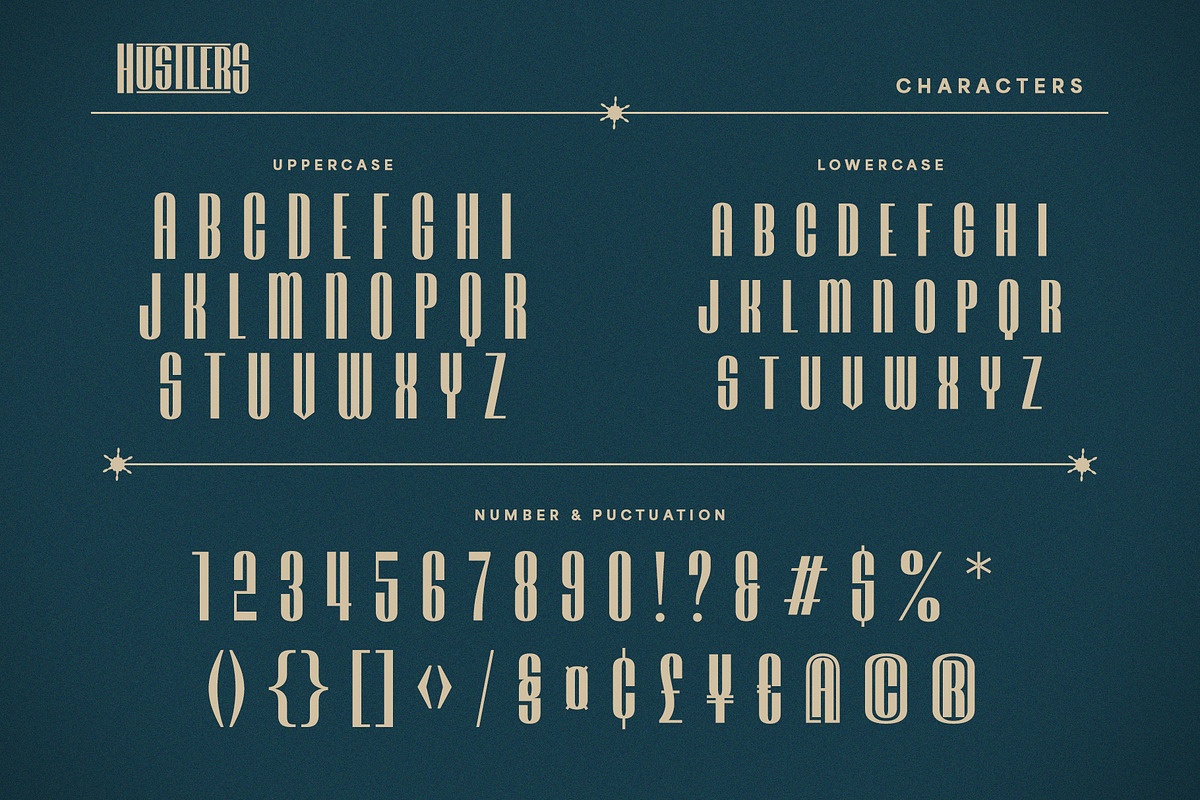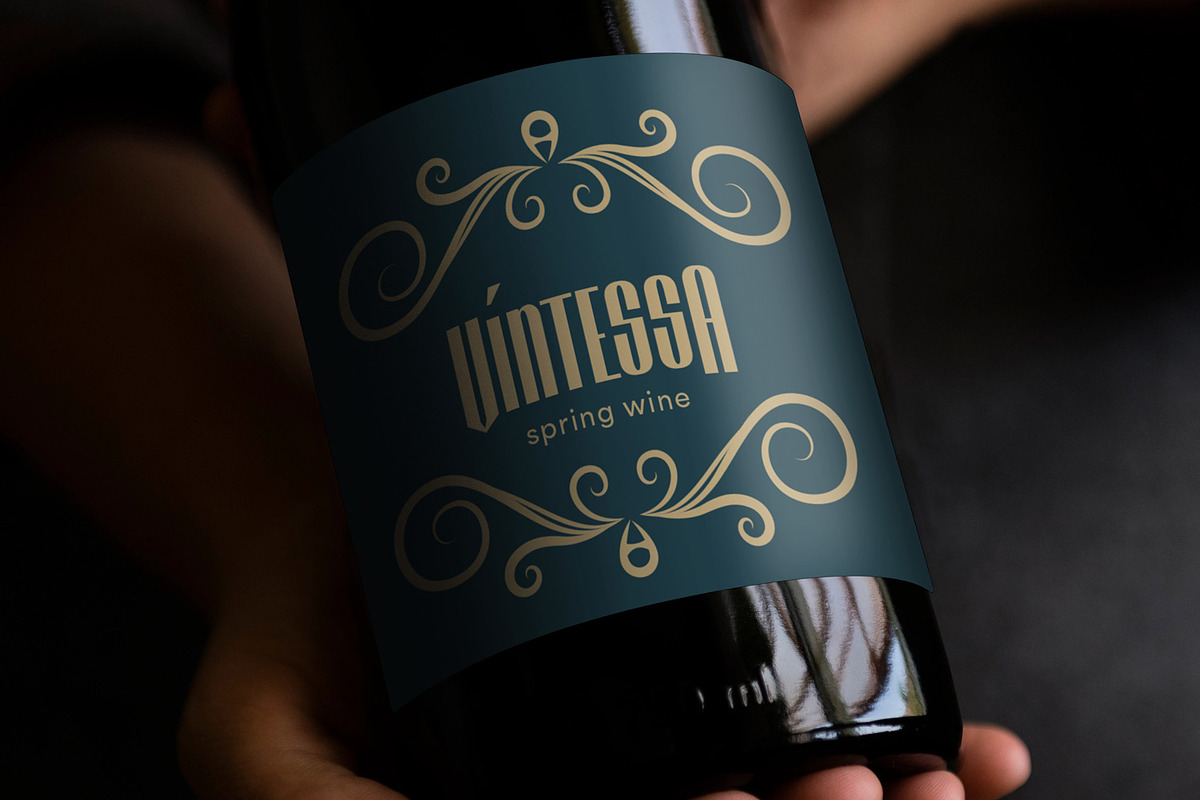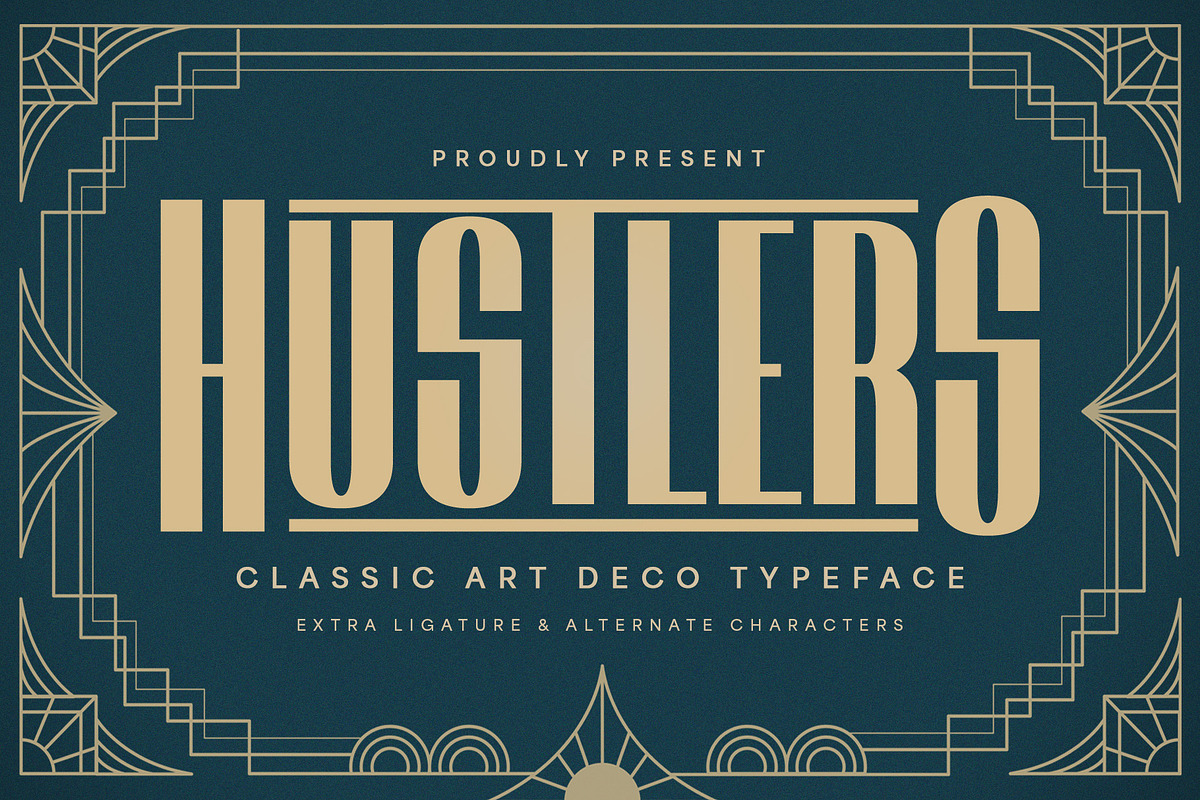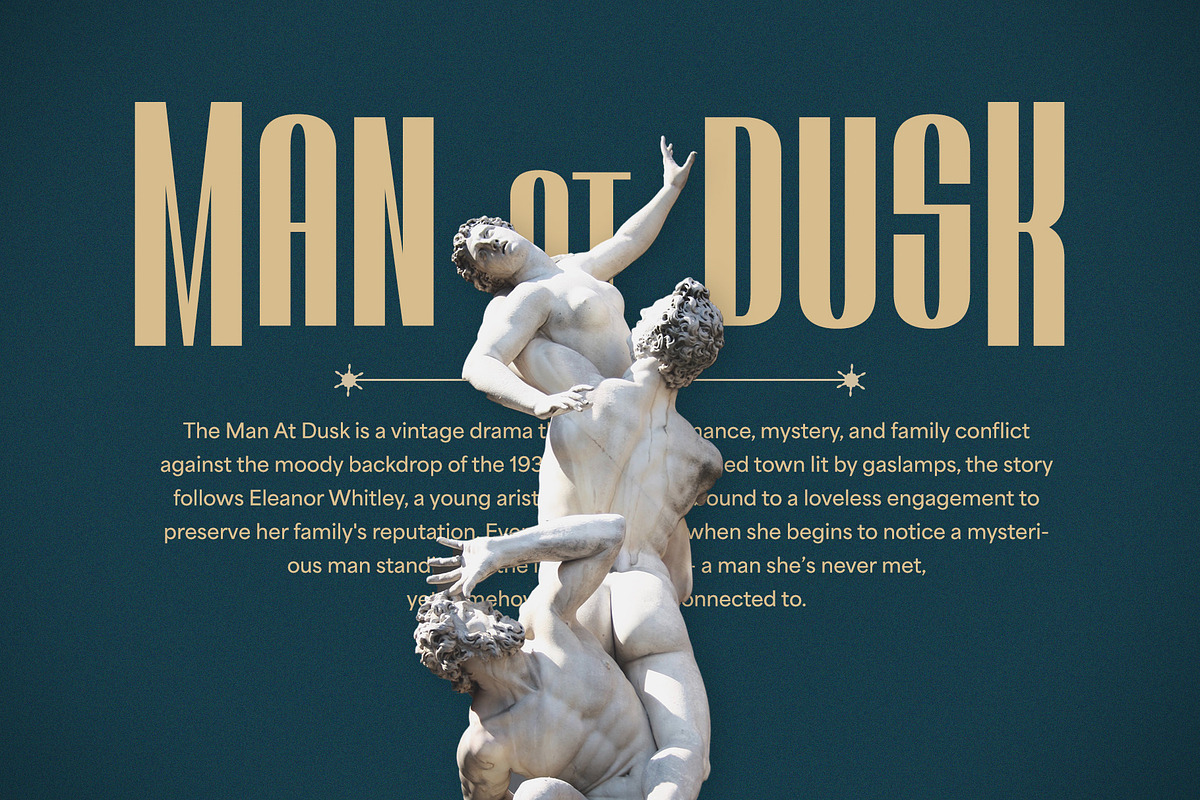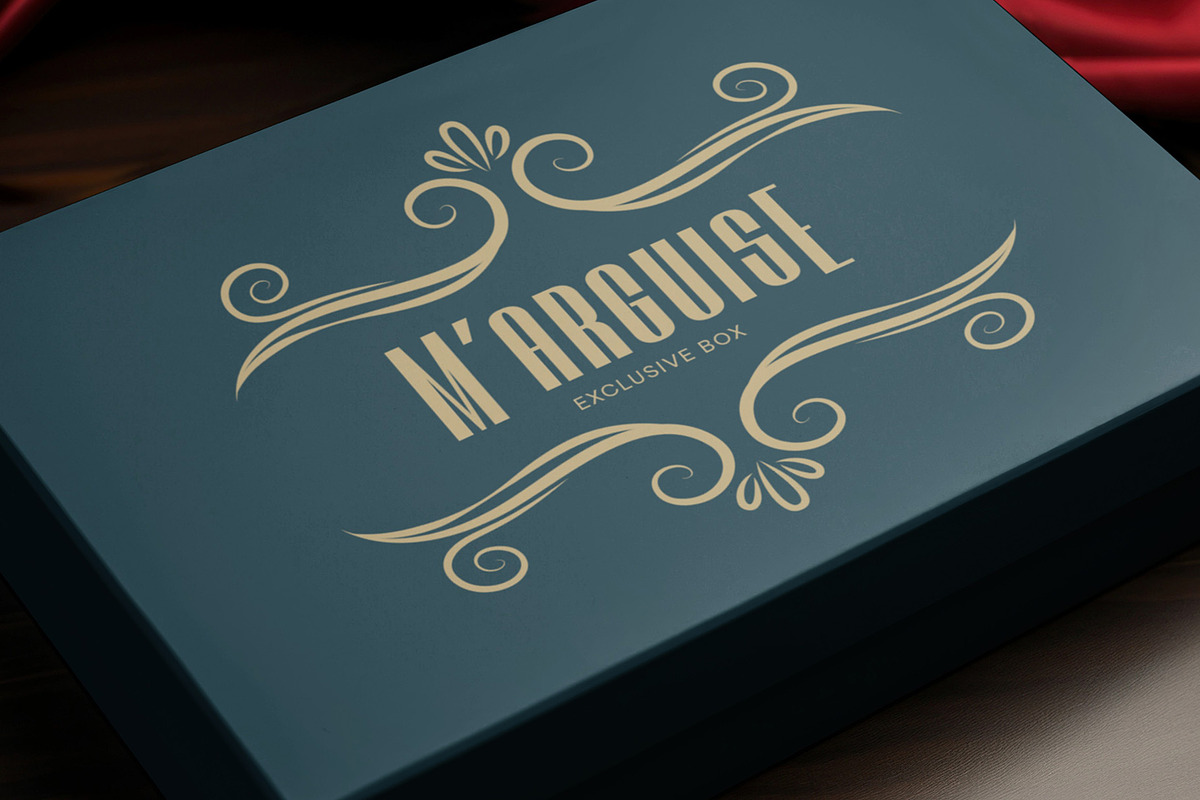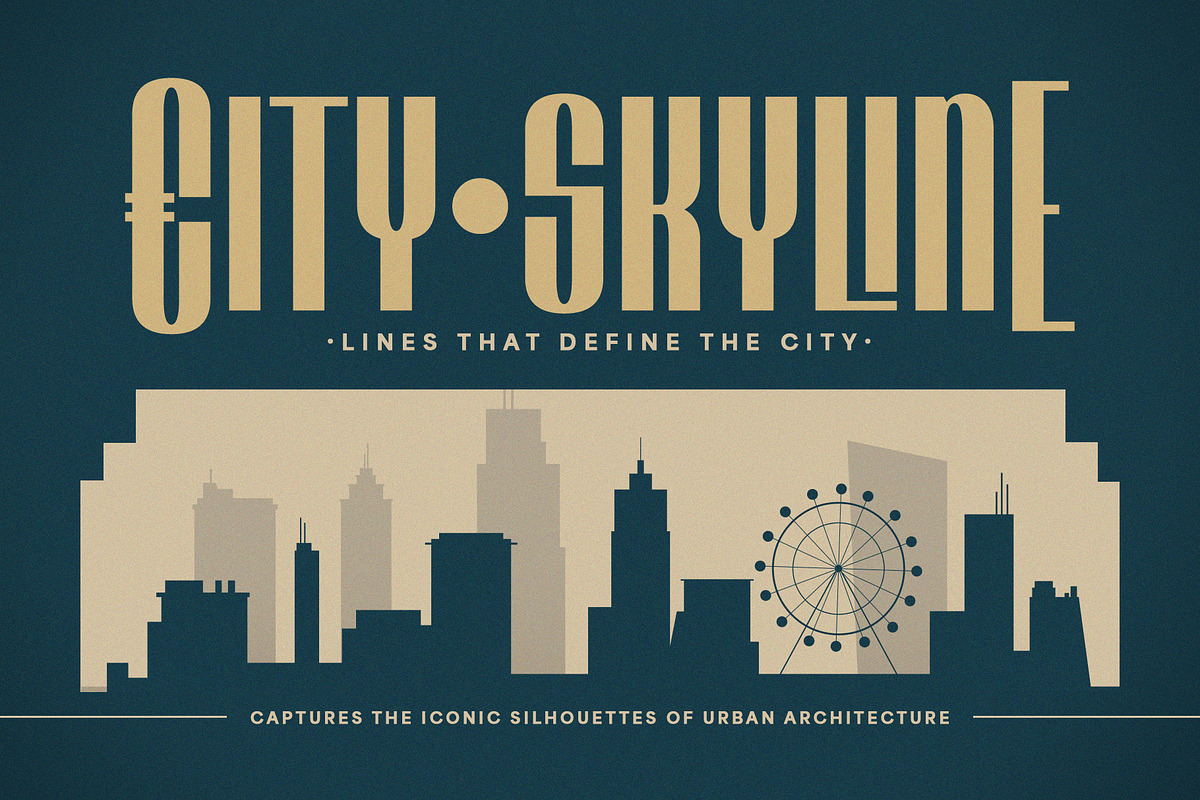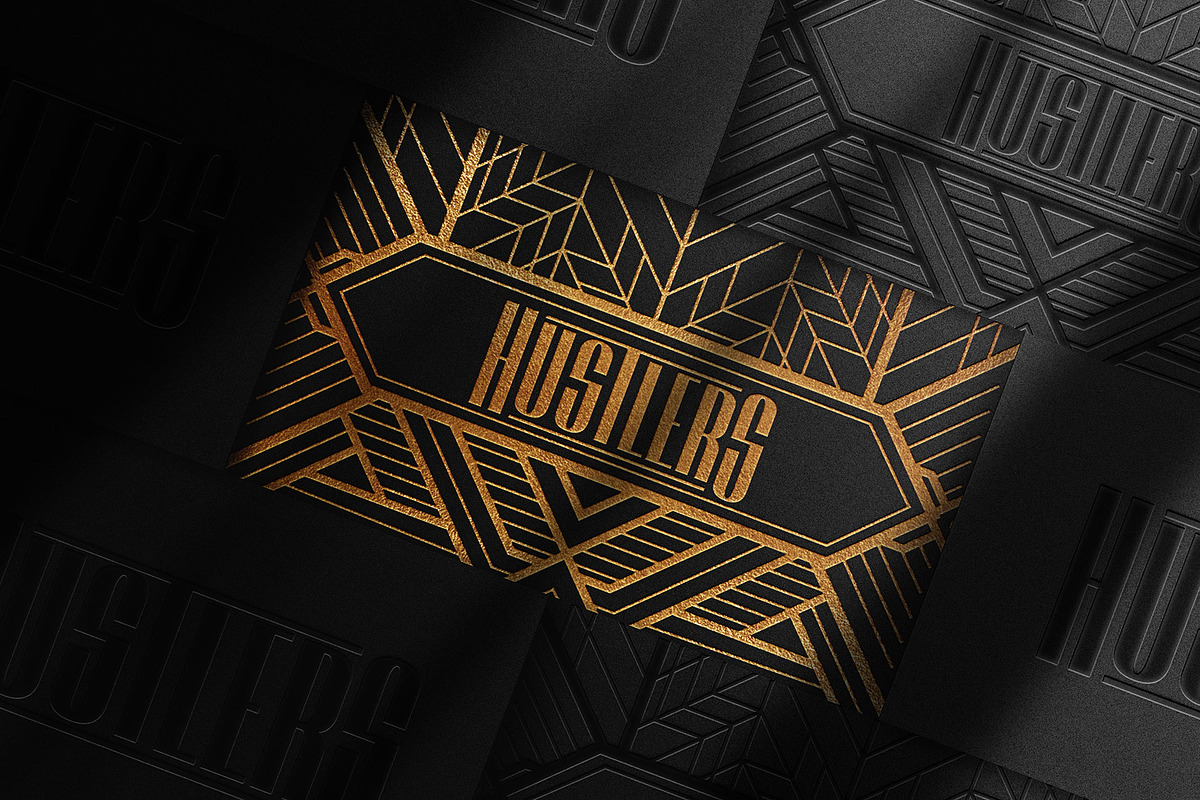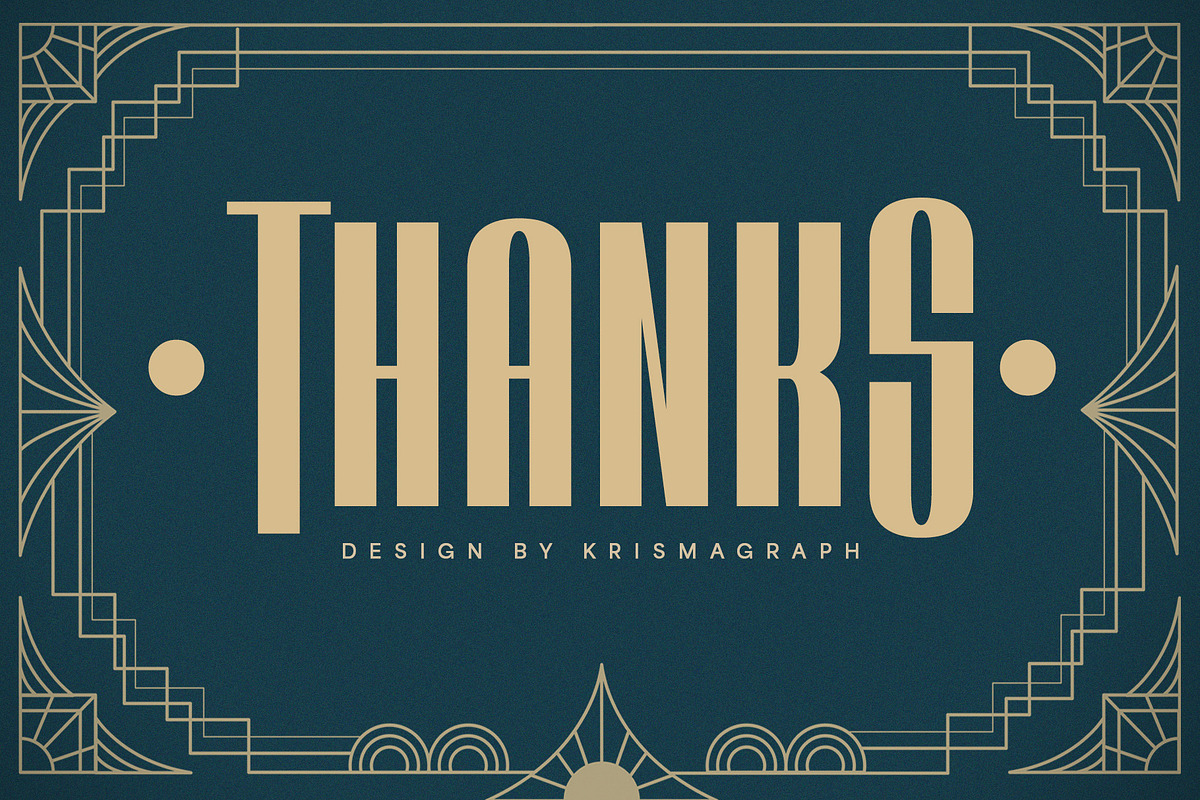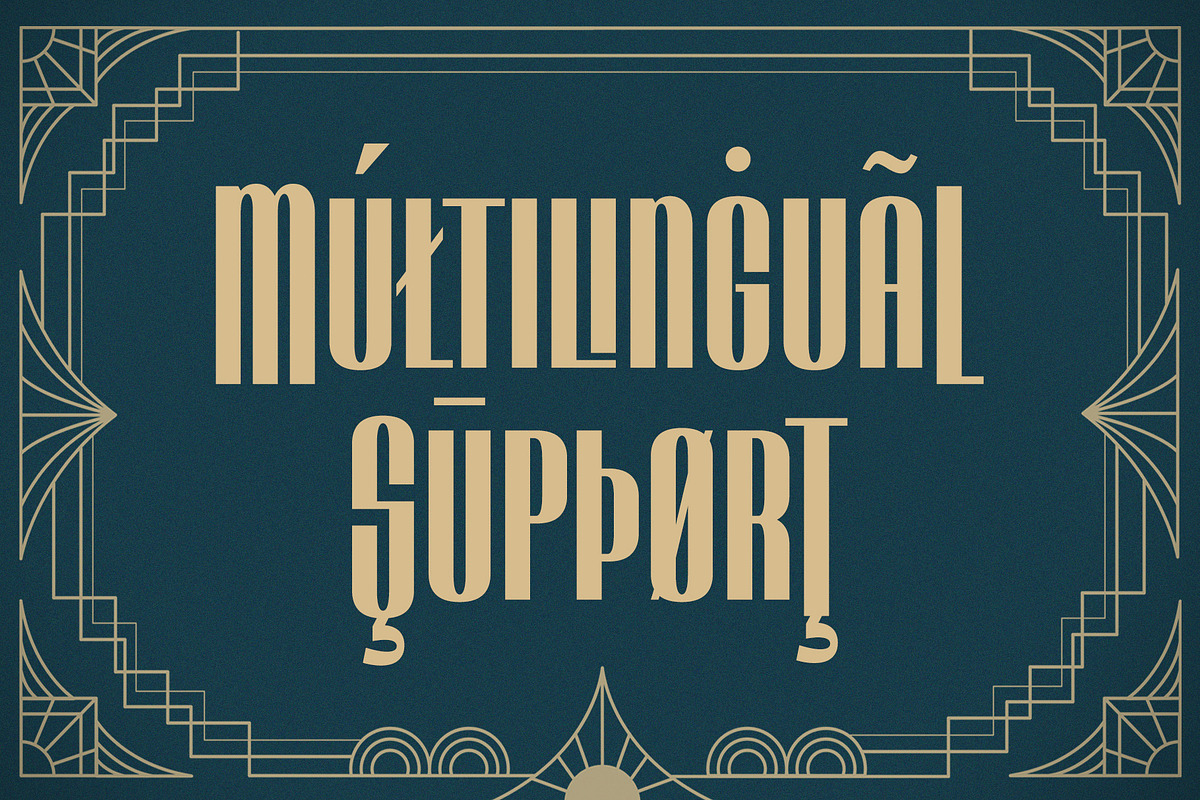
Hustlers - Art Deco Font
Step back in time with Hustlers, a bold and sophisticated classic Art Deco typeface that exudes the glamour and grandeur of the roaring twenties. This stunning display font is perfect for vintage branding, movie posters, jazz club promotions, editorial headlines, and any project seeking an authentic retro yet modern feel. Hustlers comes packed with extra ligatures and alternate characters, offering immense creative flexibility and unique stylistic variations. Its strong geometric forms and elegant lines ensure impactful visuals and excellent readability. Elevate your typography with Hustlers, the ultimate font for designers aiming to capture the distinctive charm and luxurious aesthetic of the Art Deco era with a contemporary twist.
- Ligatures & stylistic alternates
- Elegant & clean design
- Luxury fashion feel
- Modern classic aesthetic
- Perfect for logos, headlines, and branding